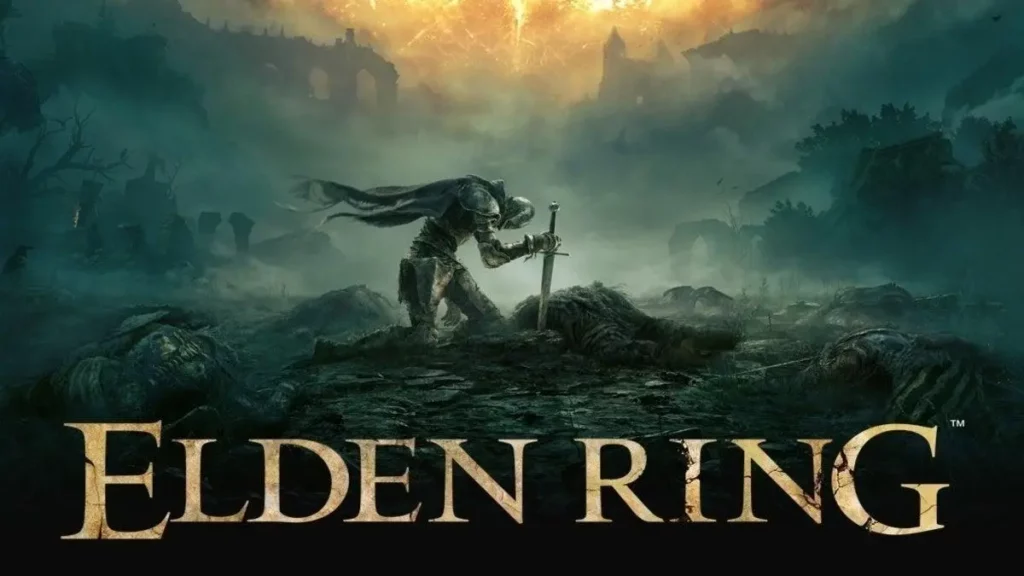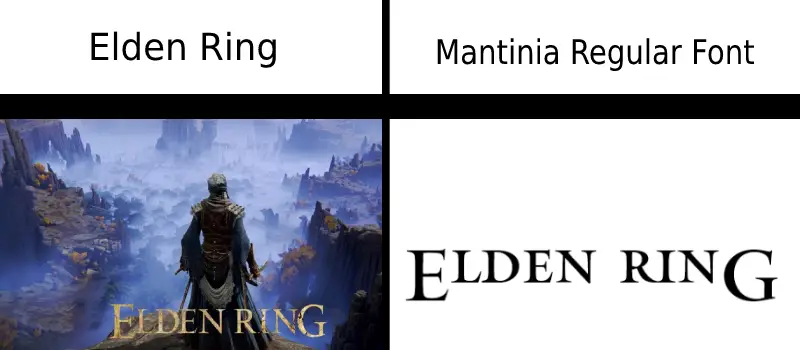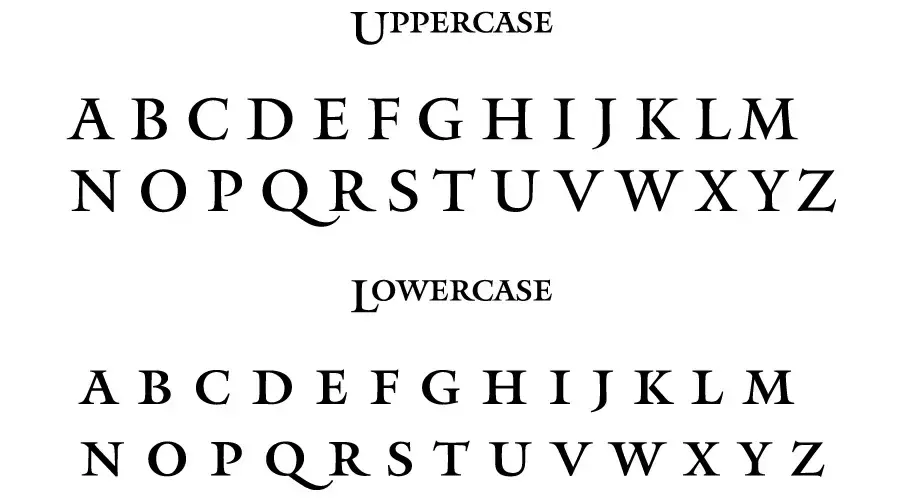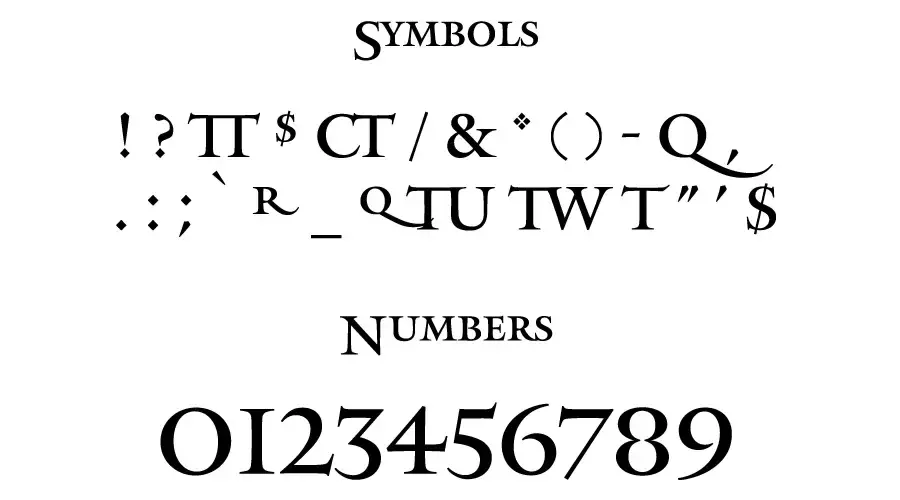
The Elden Ring title is set in a serif font that most fans match to Mantinia Regular. The font was designed by Matthew Carter and published by Carter & Cone Type. Its high-contrast serifs suit dark, formal titles and headings.
About the Elden Ring font
Mantinia Regular is a serif font with fine serifs and small decorative details at the ends of the strokes. Its thick and thin strokes differ a lot in weight, which designers call high contrast. That contrast gives the letters a bold, formal look.
The comparison image below shows how the title lettering and Mantinia Regular line up. The game’s dark, formal tone is one reason people search for this font by name.
Elden Ring font view
The images below show the characters and symbols in the font.
Mantinia works best for titles, chapter headings and posters. For long body text, a plainer serif such as Georgia is easier to read. Thin serifs can blur on screens at small sizes, so test the font at the size you plan to use.
What font is Elden Ring?
The title lettering is closest to Mantinia Regular, a serif font designed by Matthew Carter. Fans usually name it when they compare the two.